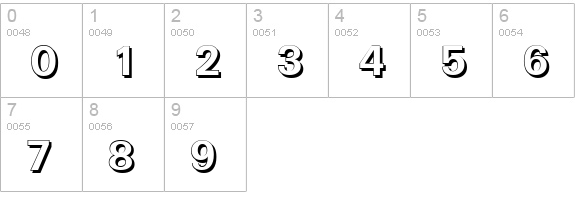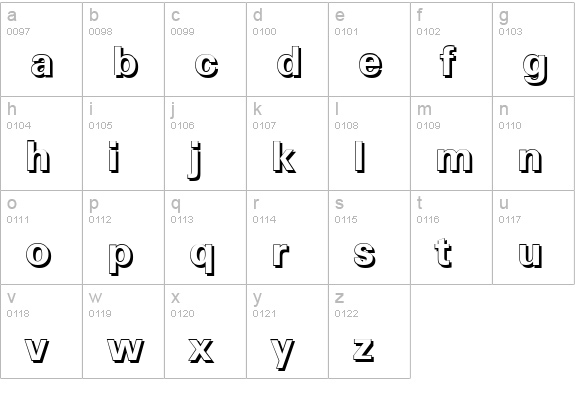
UltimateShadow-Bold is a strong, high-contrast variant in the UltimateShadow typeface family \xE2\x80\x94 well suited to headlines, attention-grabbing titles, and strong calls-to-action.
UltimateShadow-Bold font is a bold and striking typeface that exudes power and sophistication. Its thick, dramatic strokes create a commanding presence on any design project. The sharp edges and intricate details of the letters give this font a modern and edgy look that is perfect for making a statement. And the best part? UltimateShadow-Bold font is available for free download at FontsMarket.com. Whether you need a strong headline for a poster, a bold logo for your brand, or a standout title for your website, this versatile font will help you make a lasting impression. Download UltimateShadow-Bold today and take your designs to the next level!